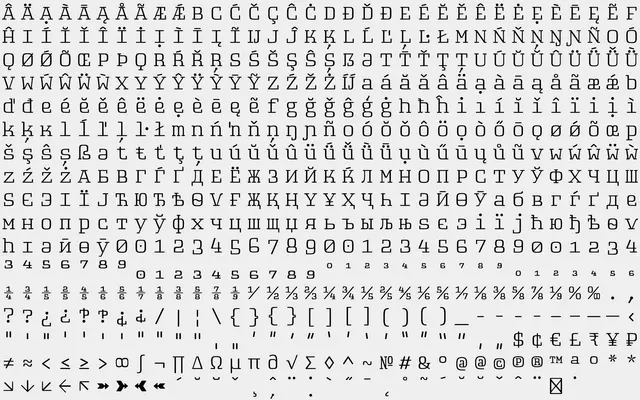
A 64-style monospaced superfamily designed live in a Berlin gallery, spanning serif, rounded, sans and roughened variants across Latin and Cyrillic.
Originally conceived as a live design experiment for a Berlin gallery exhibition, Fip expanded considerably before its 2015 release into a superfamily of 64 fonts. The base design carries decorative cuts and notches on its serifs and terminals, while Fip Rounded simplifies and softens those forms, Fip Sans strips the serifs entirely, and Fip Rough introduces a typewriter-like organic texture across all styles. Latin and Cyrillic scripts are supported throughout, with 717 glyphs per font.
Fip is a monospaced superfamily with serif, sans-serif and rounded subfamilies; the base design features decorative cuts, notches and serifs on a fixed-width grid, placing it firmly in the slab mono category.